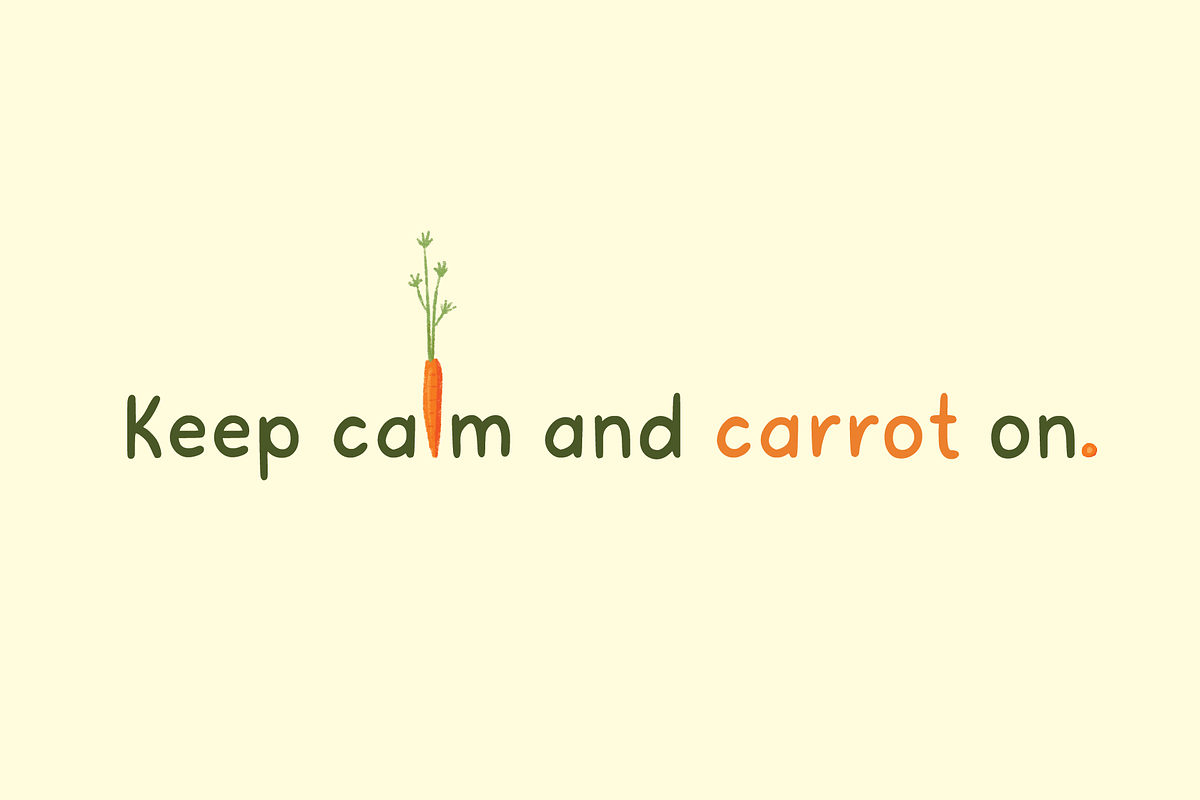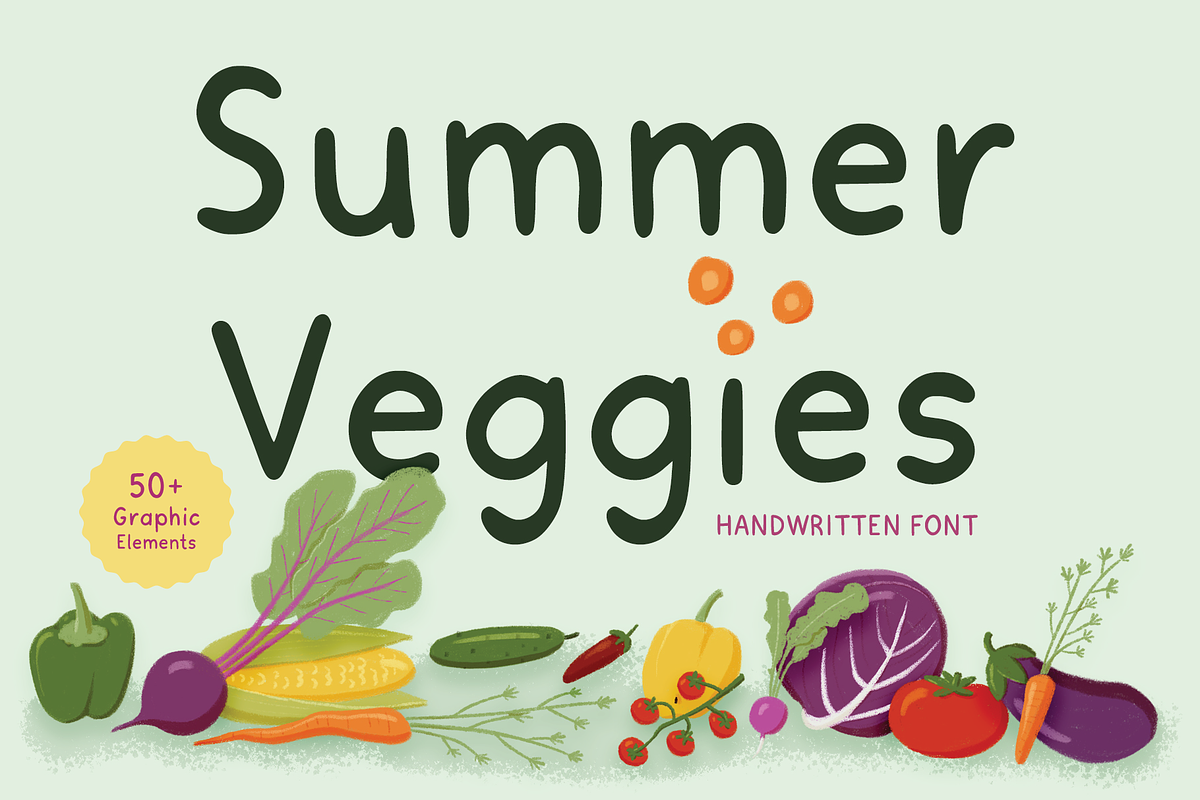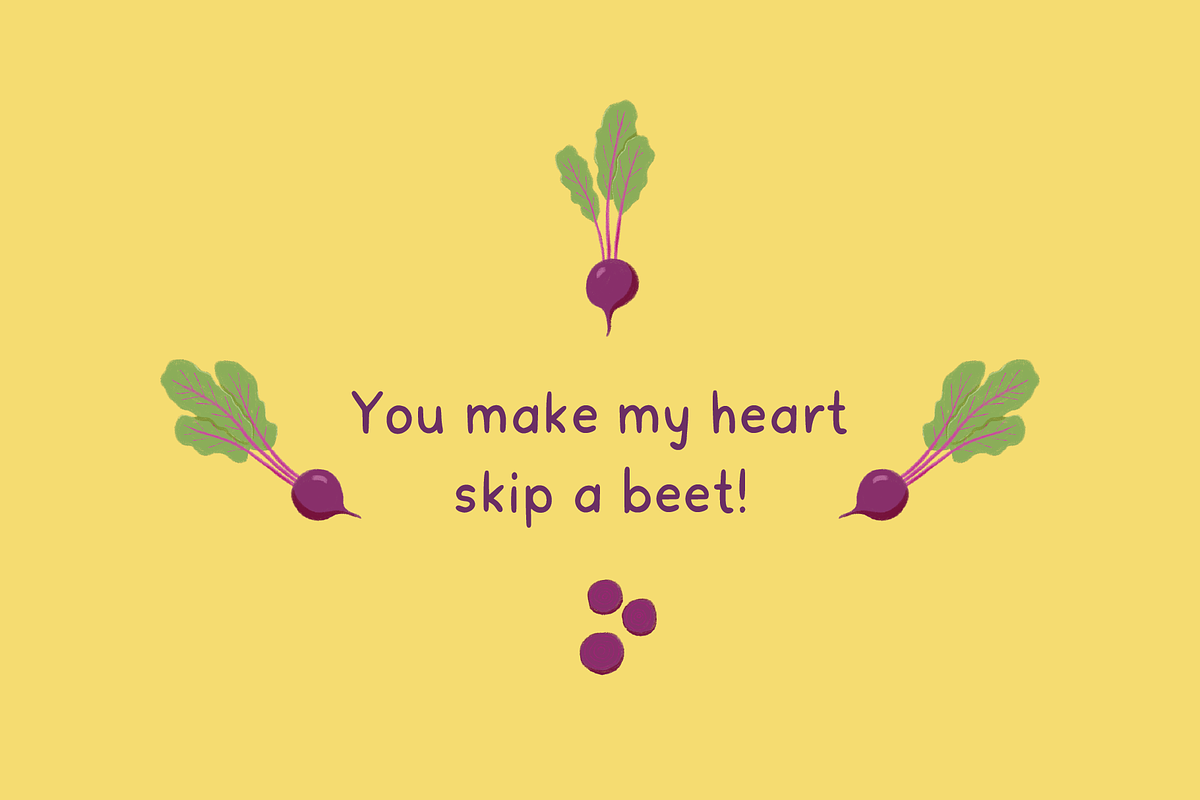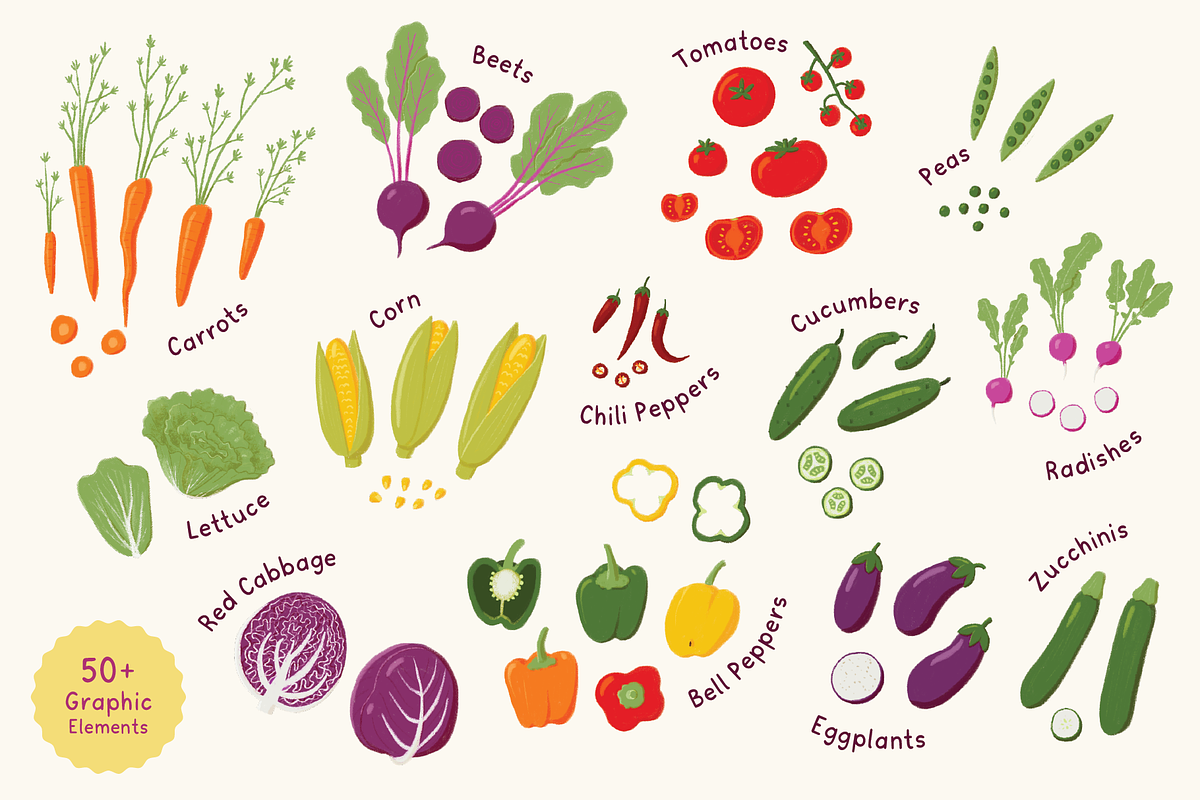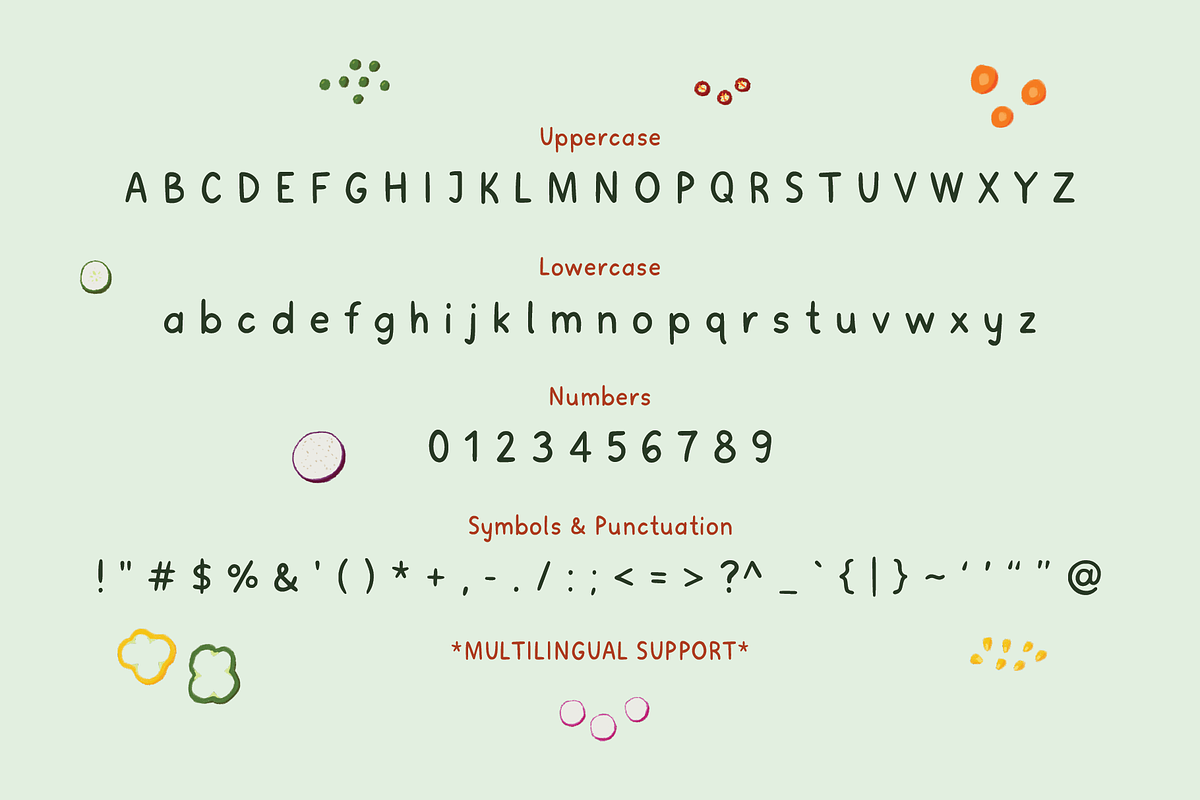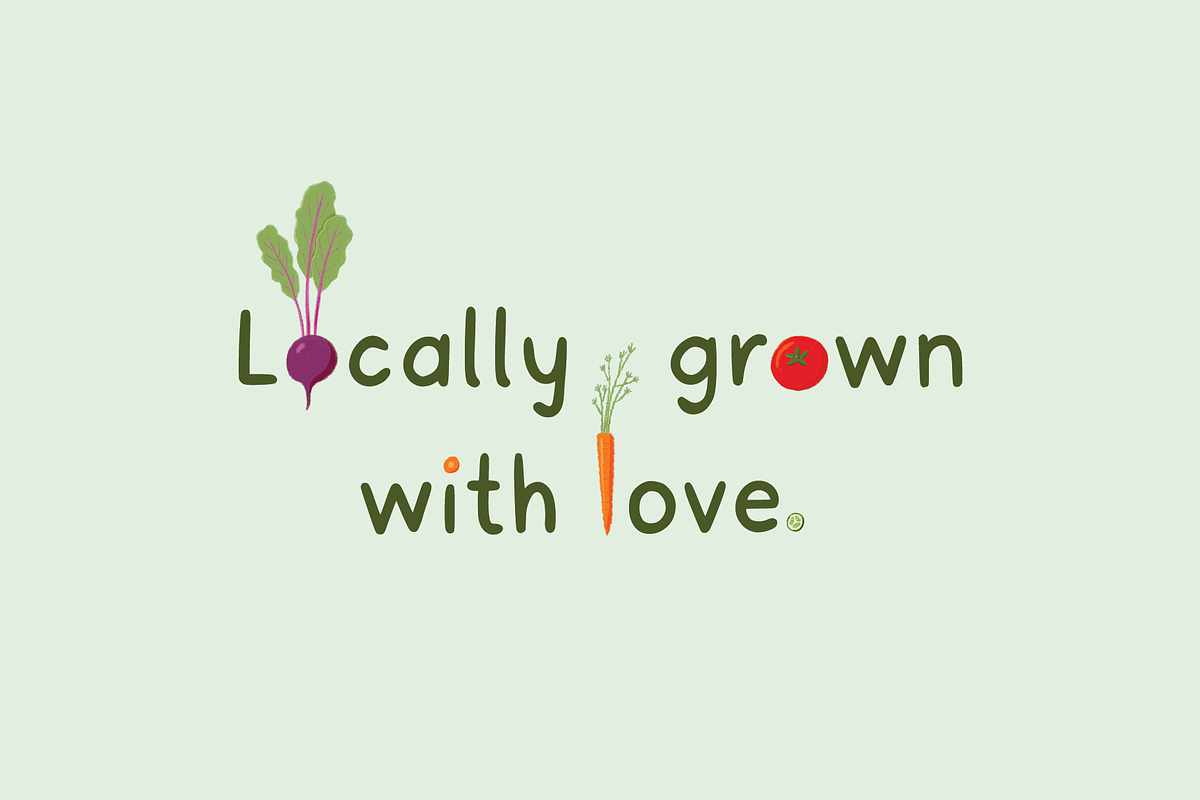
Summer Veggies
Summer Veggies is a cheerful handwritten font inspired by sunny garden days and fresh seasonal produce. With its loose, natural strokes and breezy feel, it’s perfect for recipe cards, packaging, greeting cards, posters, and branding projects that need a wholesome, down-to-earth touch. The organic letterforms bring a sense of warmth and personality to your designs—like handwritten notes passed around a picnic table.
This font fully supports a wide range of languages, including English, French, Spanish, Portuguese, German, Italian, Swedish, Norwegian, Danish, Finnish, Icelandic, Polish, Czech, Slovak, Hungarian, Turkish, Estonian, Latvian, Lithuanian, Romanian, Albanian, Croatian, Bosnian, Slovenian, Serbian (Latin script), Irish, and Swahili. Test the font above to ensure it suits your project.